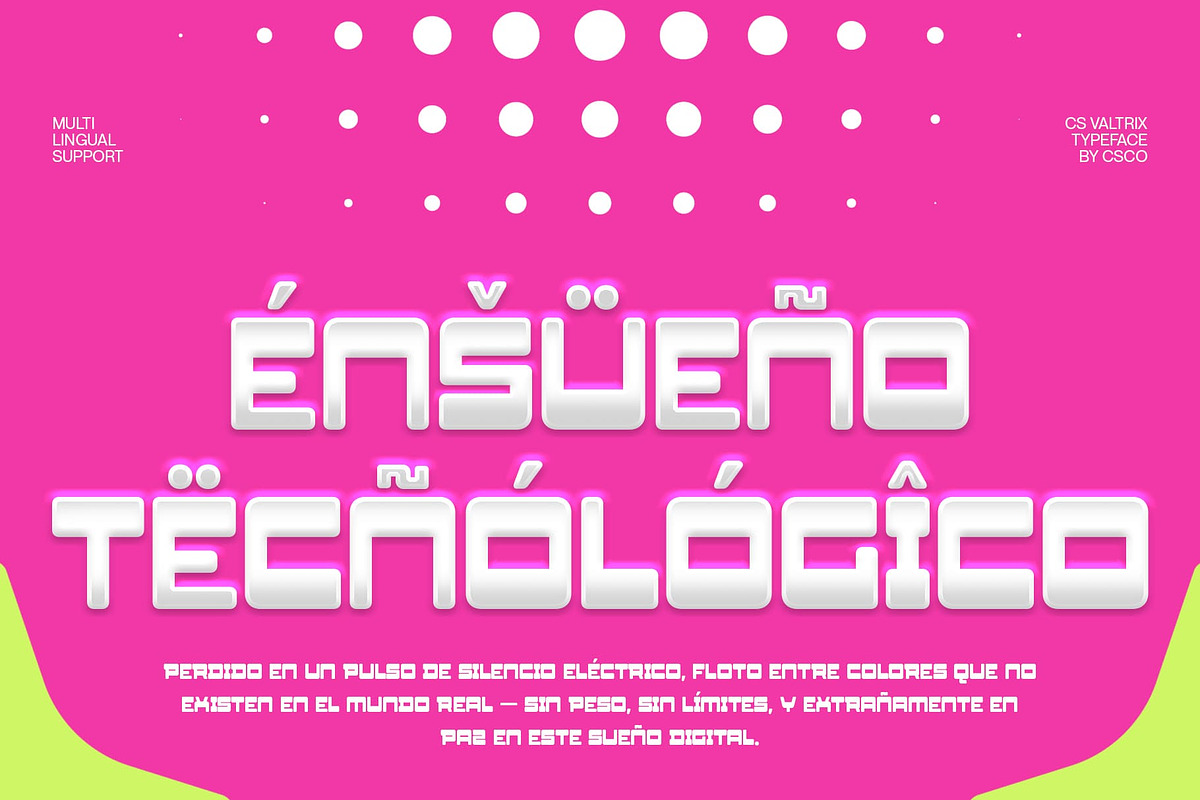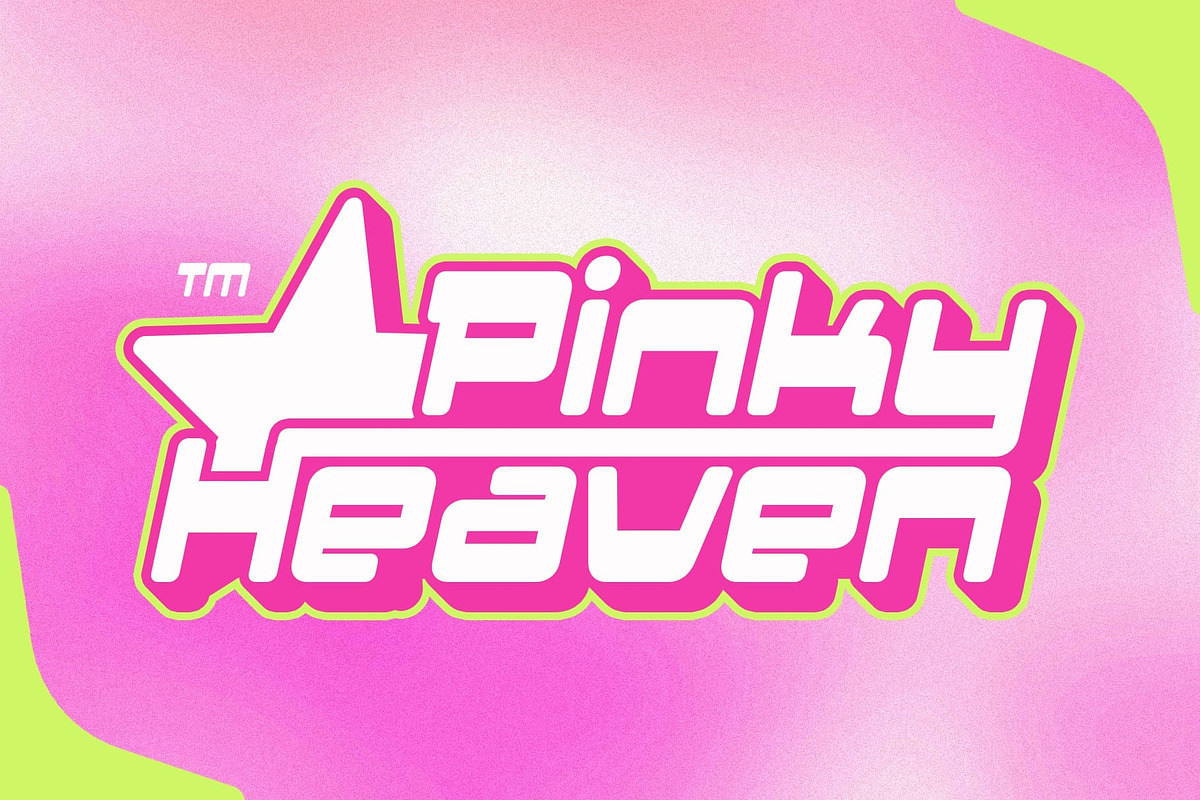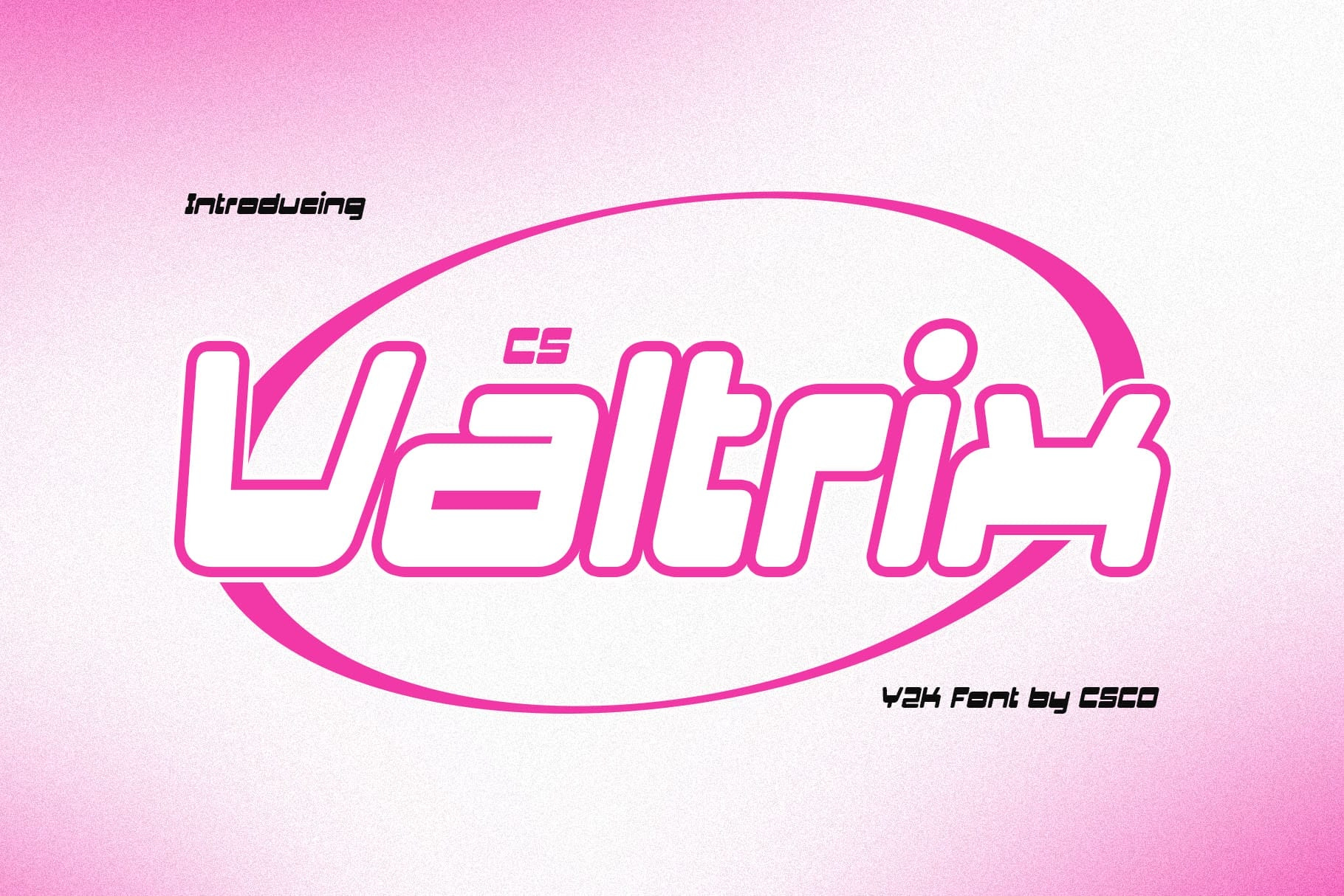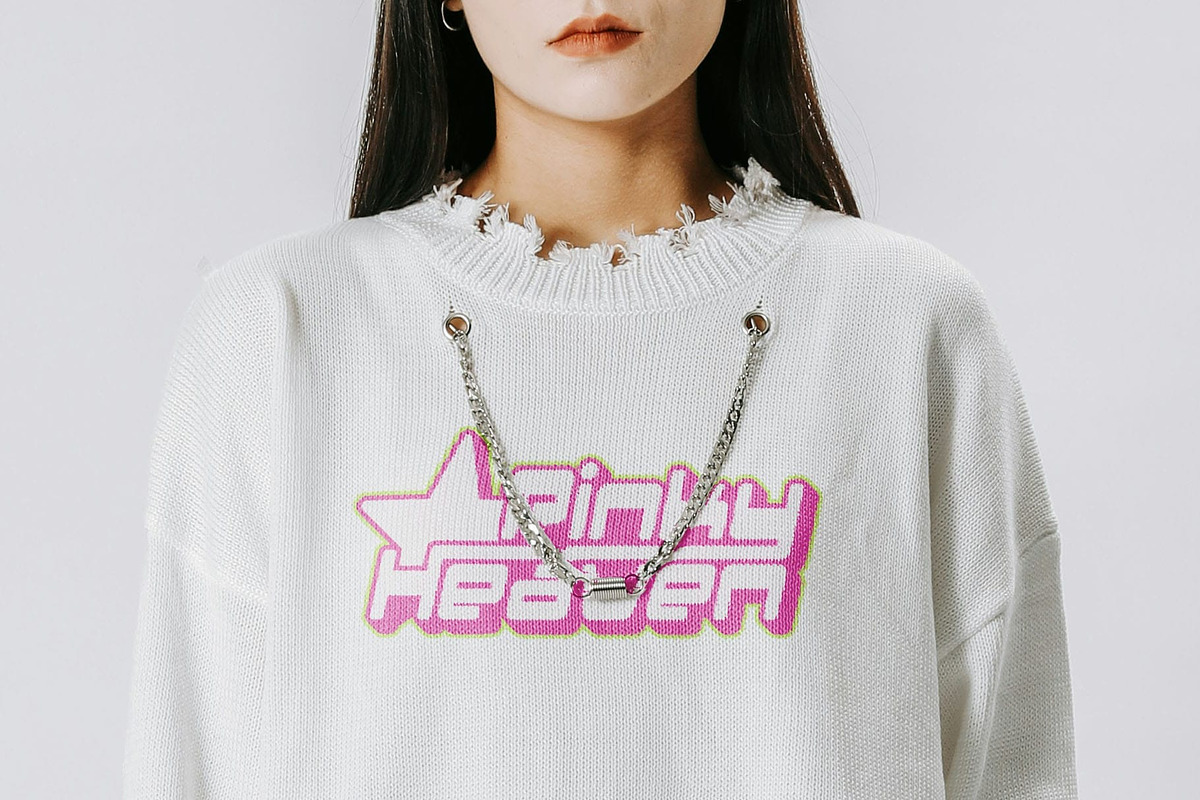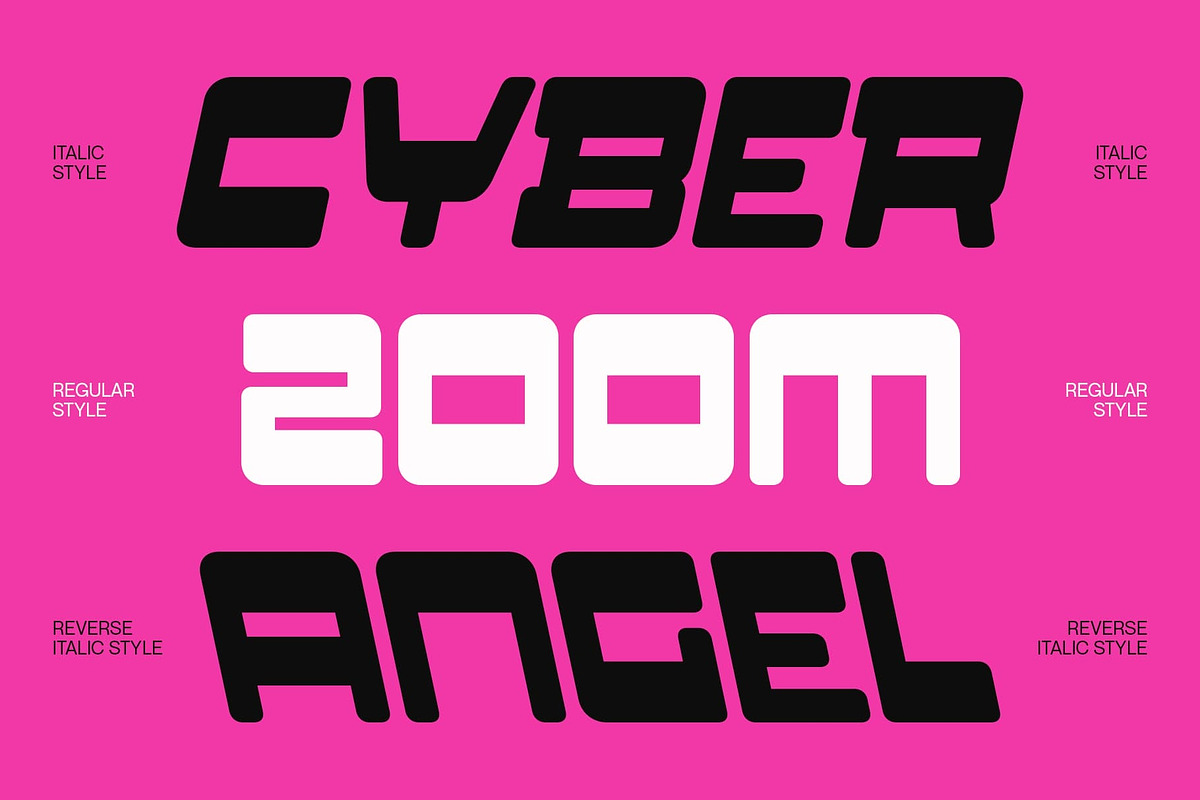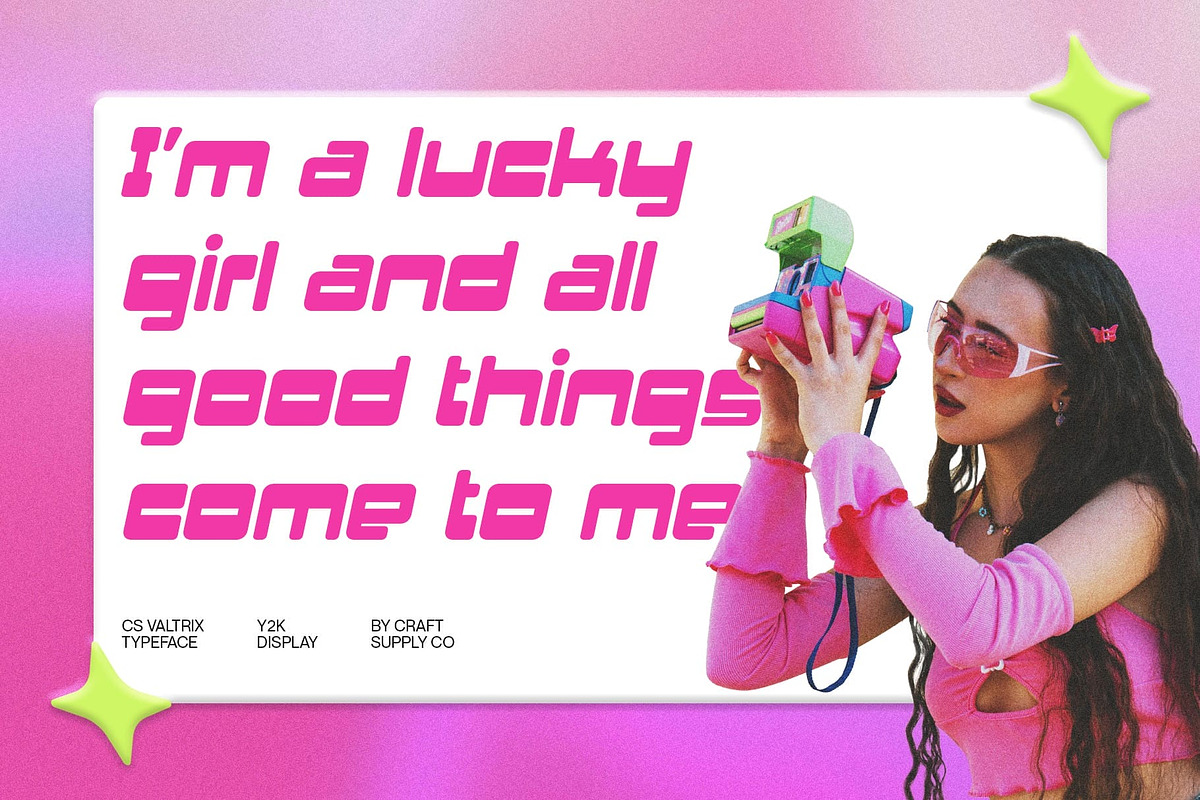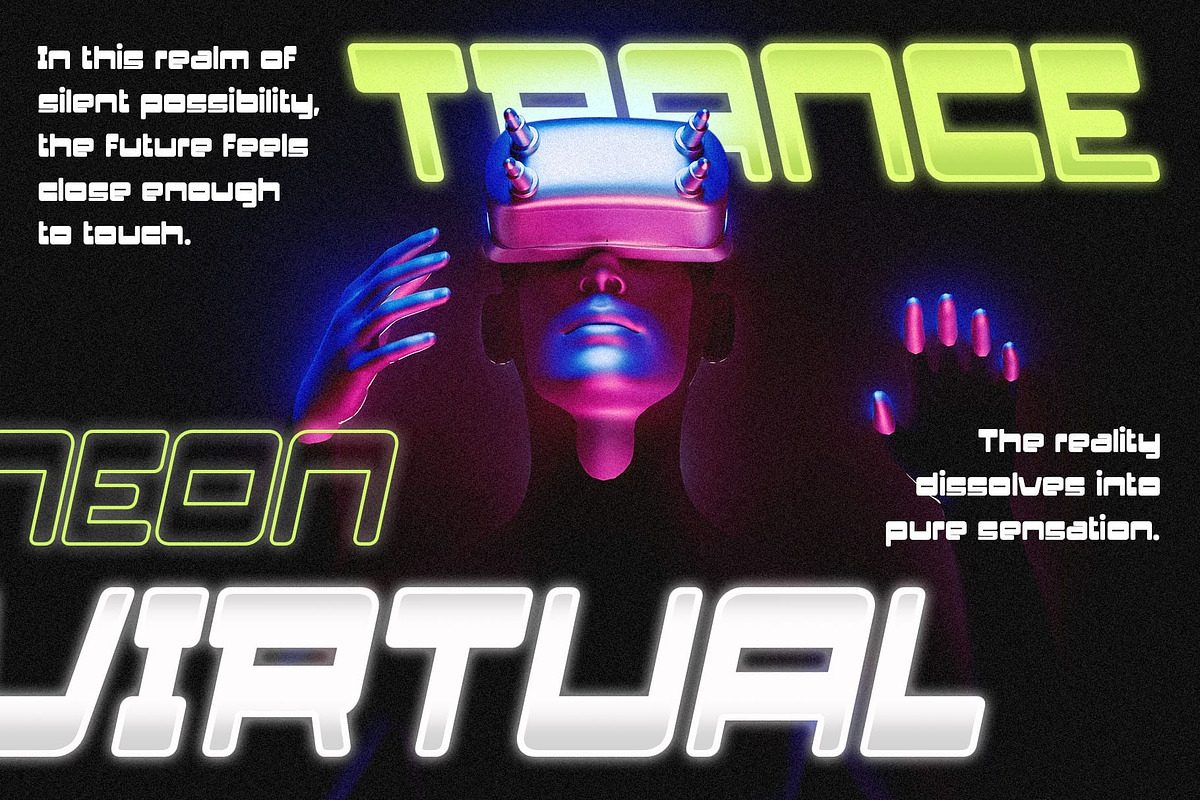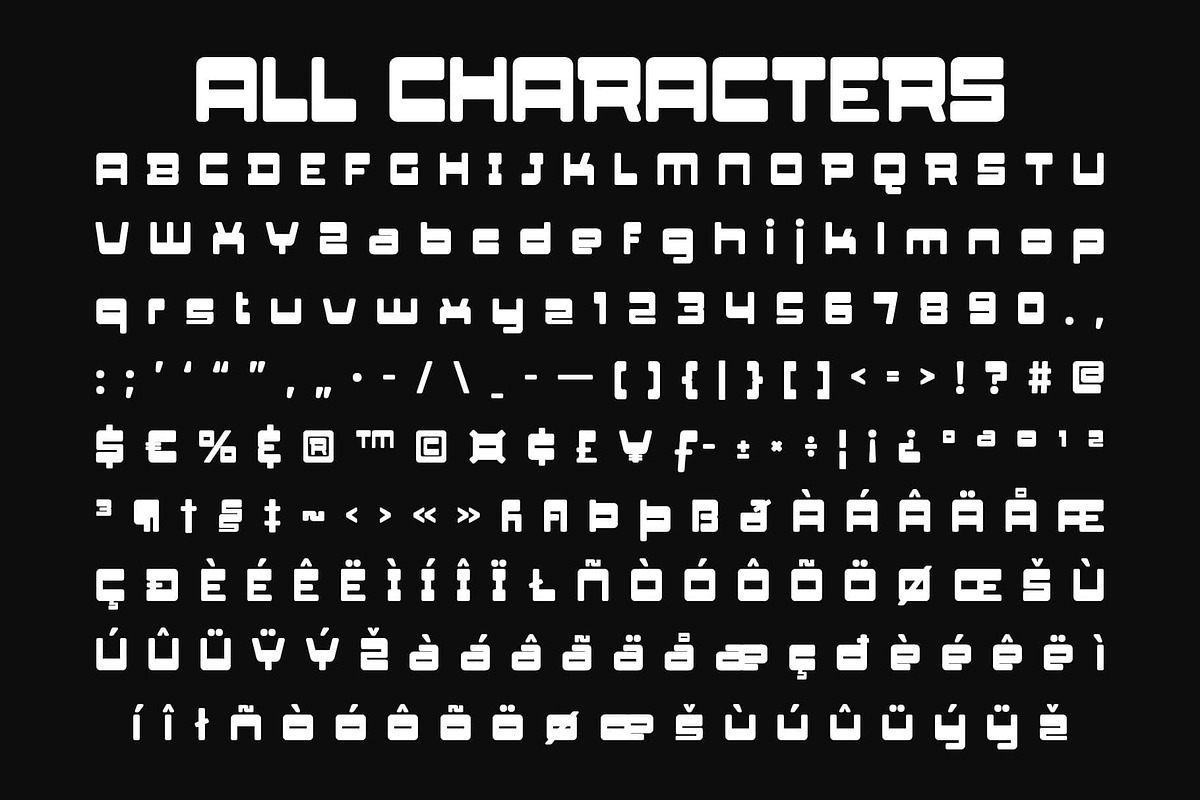
CS Valtrix – Y2K Font
CS Valtrix – Y2K Display Font with Futuristic Energy
Vibrant Display Font for the Digital Era This is a bold and dynamic Y2K display font that captures the spirit of early 2000s aesthetics through shimmering gradients and striking outlines. Every letter radiates energy and nostalgia, evoking the playful yet futuristic style of the millennium age. It’s designed to command attention, making your visuals pop with digital vibrance and confidence.
Bold Outlines and Futuristic Aesthetics The strong letterforms of this font are enhanced by their bold outlines, giving each character a structured yet expressive feel. This visual strength is balanced with smooth curves and sleek geometry, creating a design that feels both retro and forward-looking perfect for evoking cyber, pop, or tech-inspired moods.
Shimmering Gradients for a Dynamic Glow What sets this font apart is its luminous gradient styling, adding depth and motion to every glyph. The radiant shine creates a holographic, high-energy effect that perfectly embodies Y2K culture, with a sense of optimism and digital sophistication.
Perfect for Modern and Nostalgic Design Ideal for digital branding, music visuals, posters, party graphics, and social media content, this font transforms text into an expressive statement. Whether you’re channeling futuristic vibes or nostalgic Y2K energy, this font delivers a bold, vibrant, and trendsetting look that captures attention instantly.